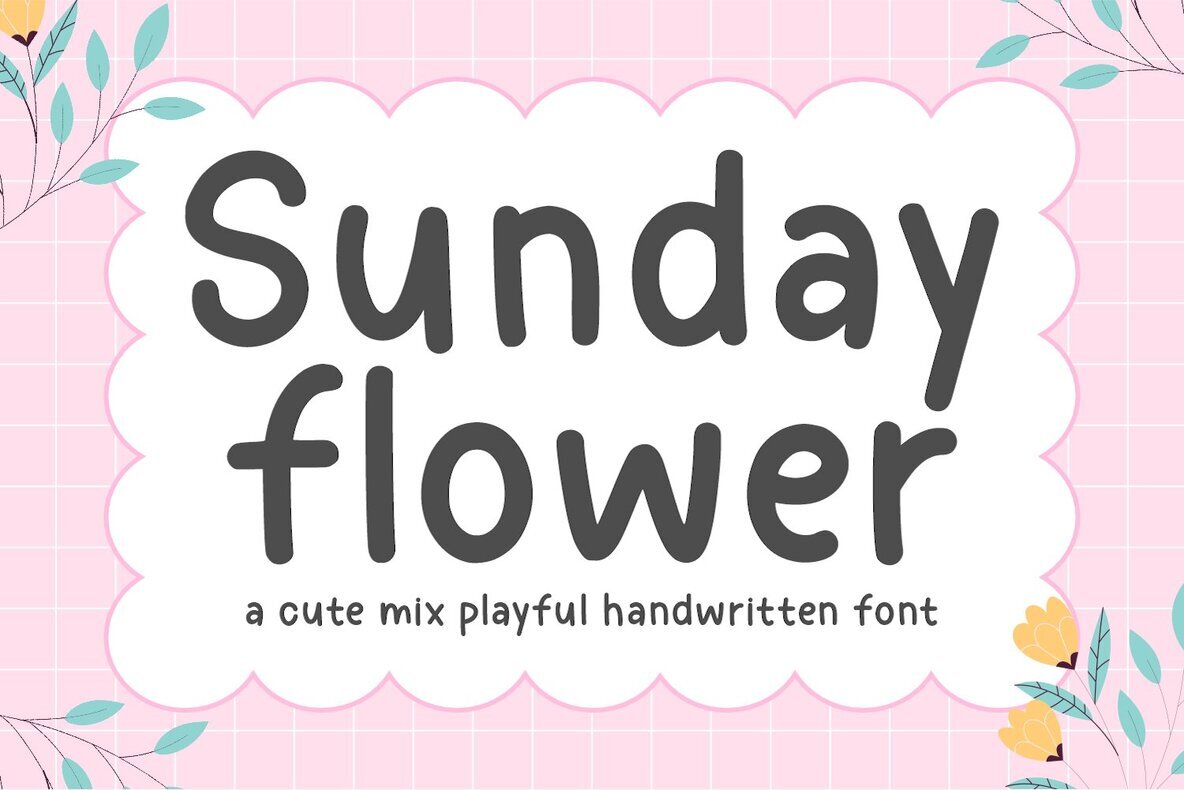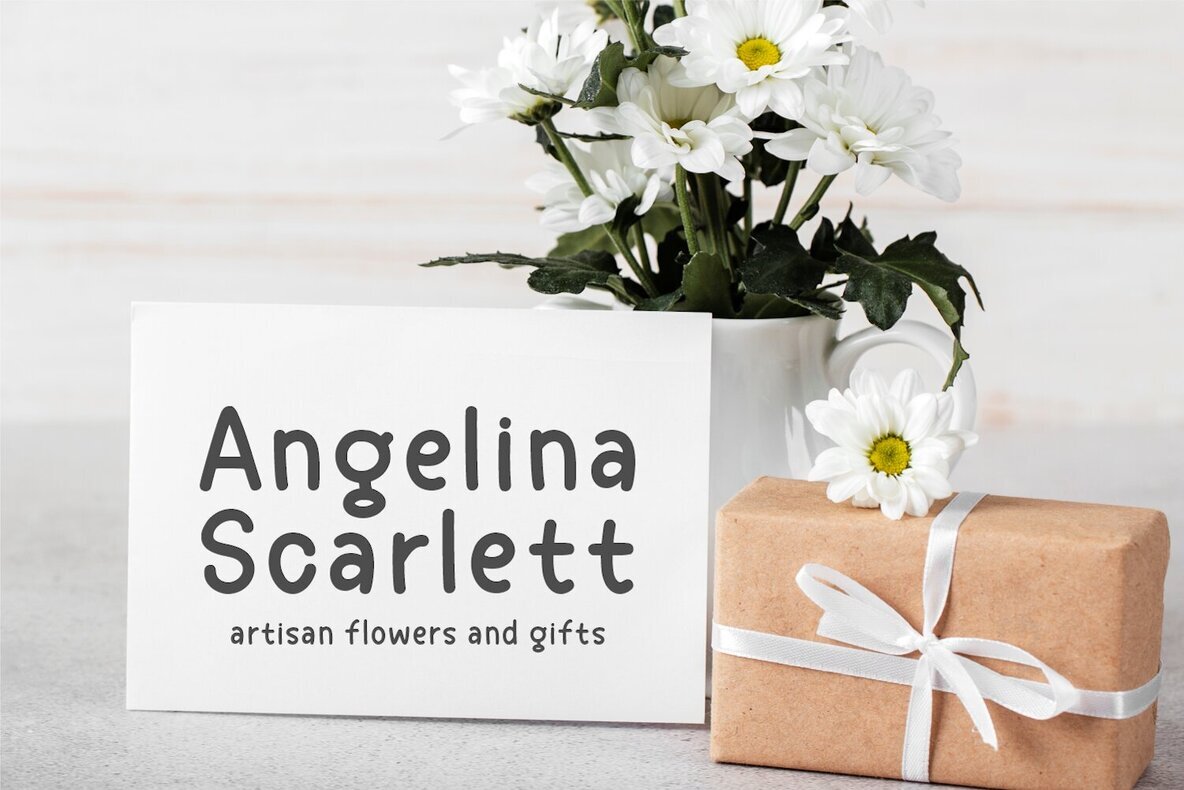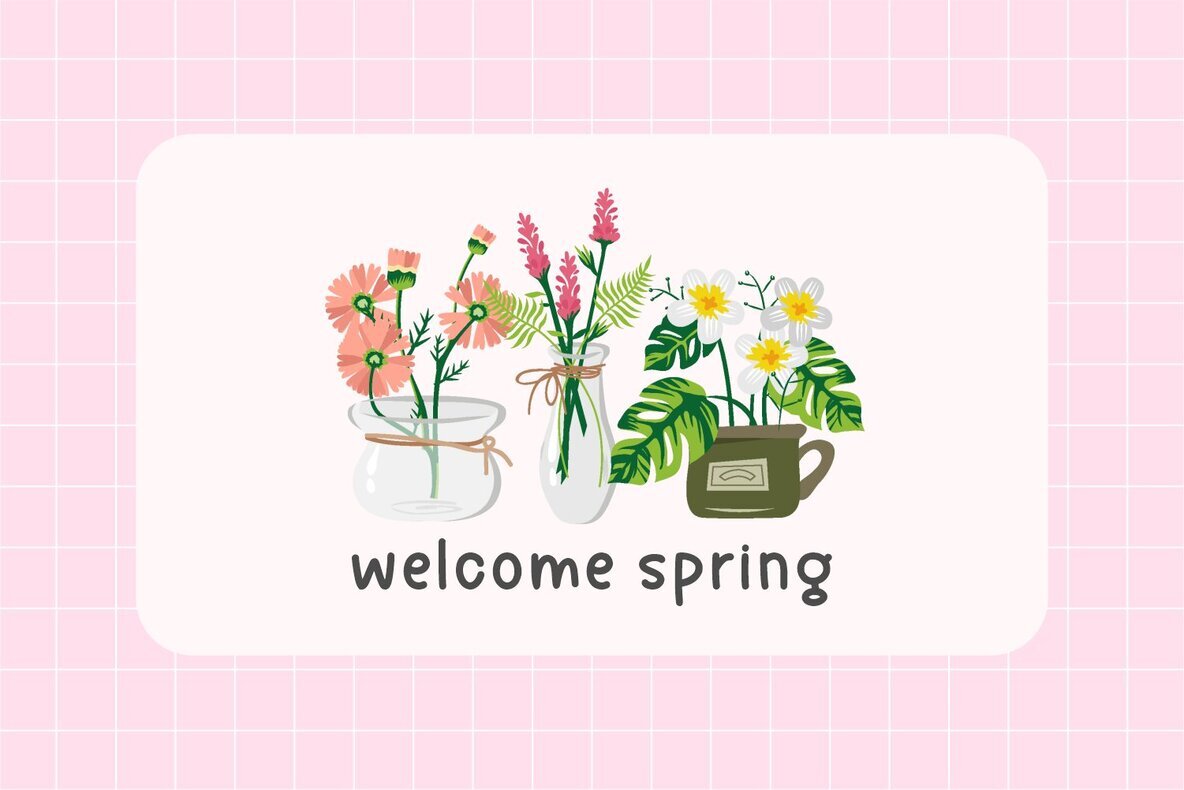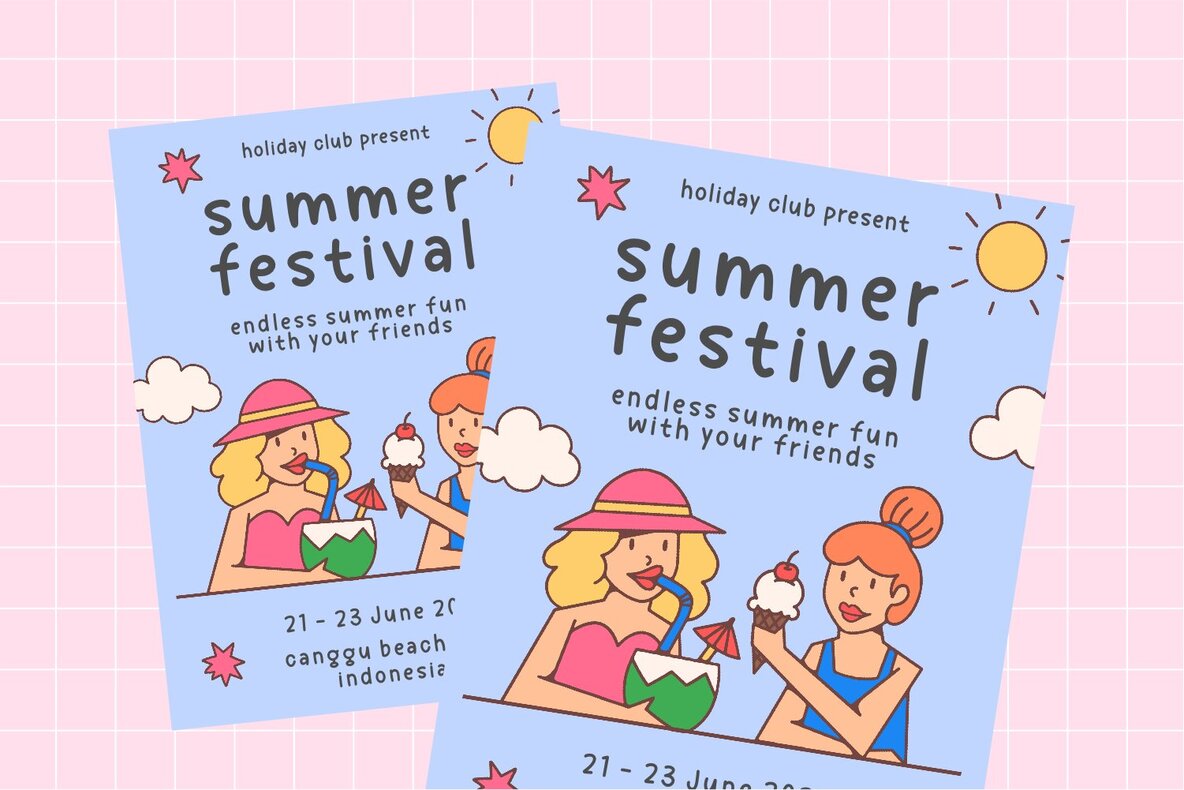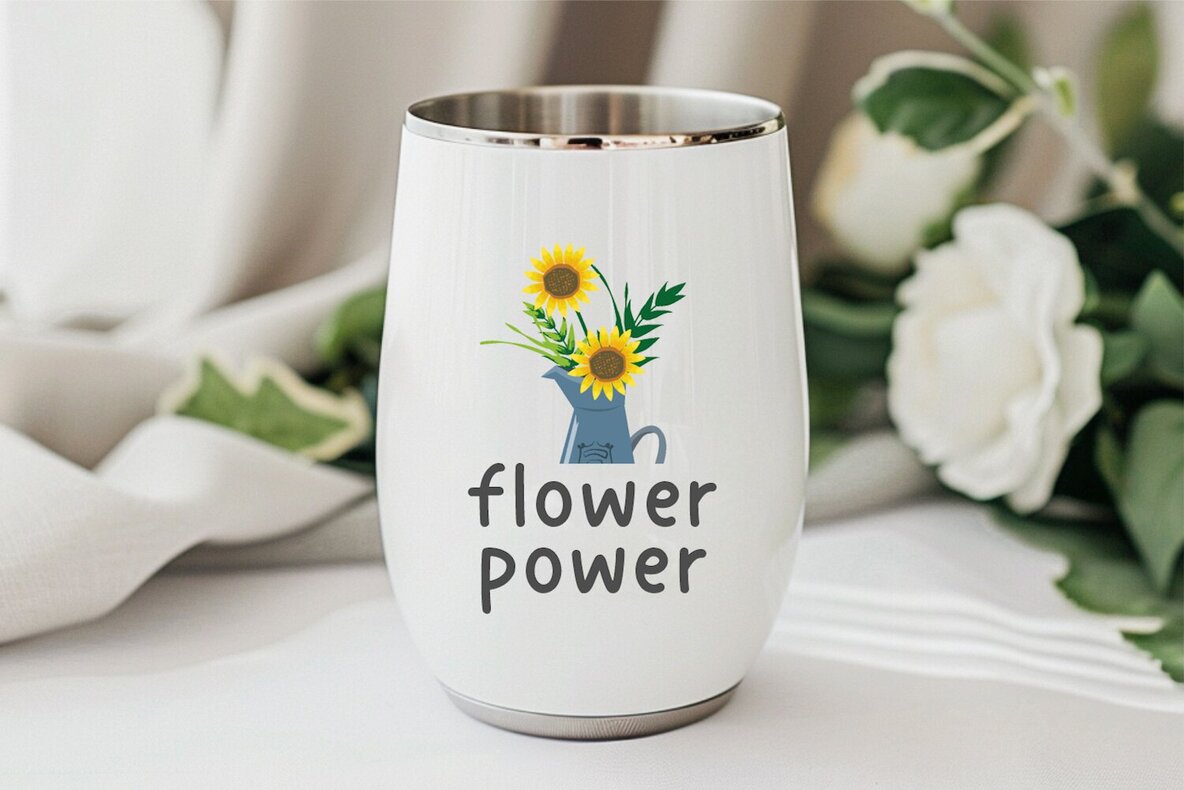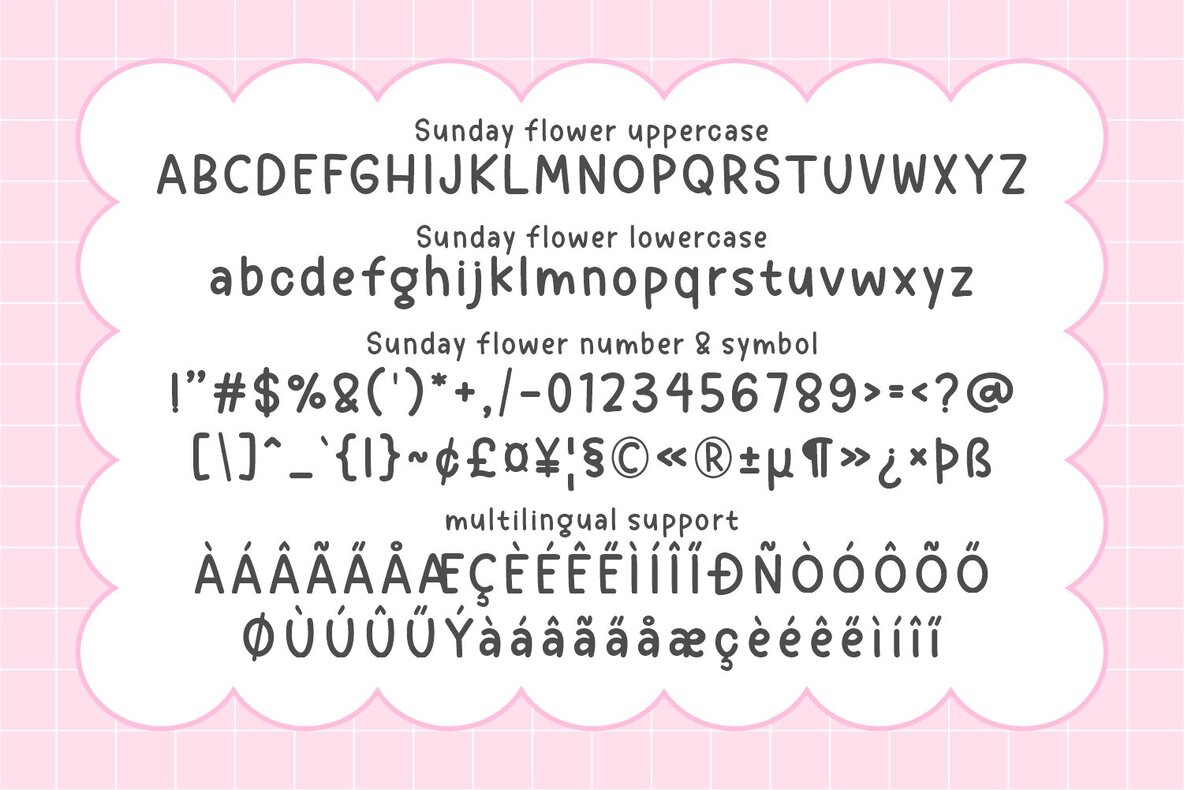
Sunday Flower Font
Sunday Flower
Discover the whimsical charm of the Sunday Flower, a delightful handwritten font that exudes joy in every stroke. Perfect for spring and summer designs, this exuberant typeface lends a cheerfully buoyant essence to all your creations. Whether you're designing posters, t-shirts, logos, or blogs, Sunday Flower's versatility shines through, making every piece feel like a celebration. Experience the artful simplicity of Sunday Flower, a font that captures the spirit of a sunny Sunday, any day of the week.Sunday Flower Font